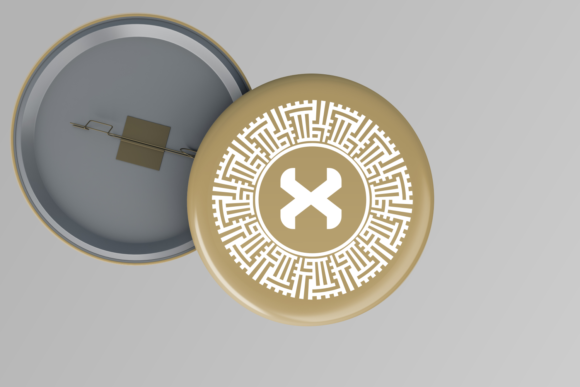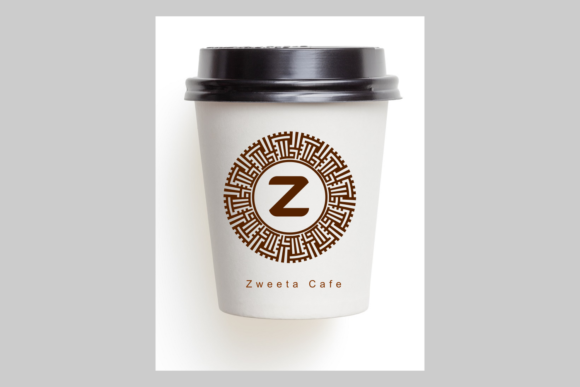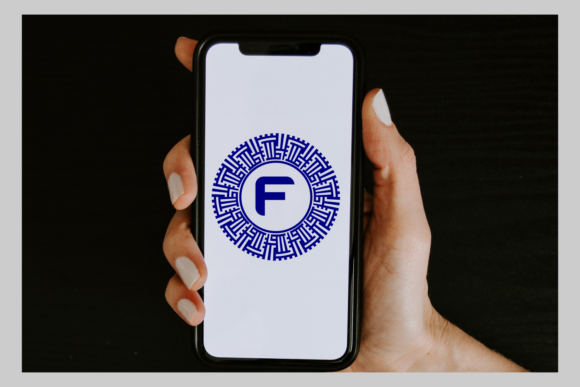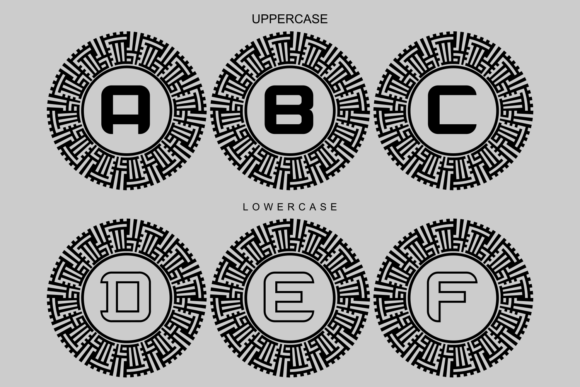
Introduction to Monogram Digimod Font
Have you ever found yourself pouring your heart and soul into a design project, only to be held back by the lack of the perfect font? That was me, until I stumbled upon the stunning Monogram Digimod Font. Its intricate details and elegant style took my breath away, and I knew I had to share it with the world.
As a designer, you know that the right font can make all the difference in bringing your creative vision to life. And that’s exactly what the Monogram Digimod Font offers – a high-quality design resource that elevates any project to the next level. Whether you’re working on a wedding invitation, a love letter, or a special design project, this beautiful font is sure to impress.
Key Features of Monogram Digimod Font
- Unique and modern monogram design ideal for creative projects and personal branding.
- High-quality vector graphics available for free download, making it a valuable design resource.
- Comes with a transparent background, allowing for easy customization and integration into various designs.
- Perfect for designers and artists looking for a unique and creative element to enhance their designs.
Honest Review: Monogram Digimod Font
I recently had the chance to experiment with the Monogram Digimod Font, and I must say, it’s been a game-changer for my creative projects. This font is a fantastic design resource that offers a unique blend of modern and vintage flair.
- What works well: ✨ The font’s versatility makes it perfect for a wide range of creative projects, from logos and branding to editorial and advertising designs.
- ✨ The transparent background feature allows for seamless integration with any design element, giving me more creative freedom to experiment with different layouts and compositions.
- ✨ The high-quality design ensures that my designs stand out from the crowd, making it a valuable addition to my design arsenal.
- ⚠️ The font’s complexity can be overwhelming for beginners, so it’s essential to have a solid understanding of design principles and typography before diving in.
Overall, I’m thoroughly impressed with the Monogram Digimod Font. Its unique style, versatility, and high-quality design make it an excellent choice for designers looking to elevate their creative projects. The free download option is a bonus, and I appreciate the transparent background feature that allows for easy customization.
The Monogram Digimod Font is a high-quality, free download that can be used in various creative projects. It features a unique and stylish design, making it an excellent choice for designers and artists.
- Use the font with a transparent background to create a unique and stylish design.
- Experiment with different font sizes and colors to create a visually appealing design.
- Combine the font with other design elements, such as graphics and images, to create a cohesive and engaging design.
The Monogram Digimod Font is commonly used in the following design projects:
- Business card design
- Poster design
- Infographic design